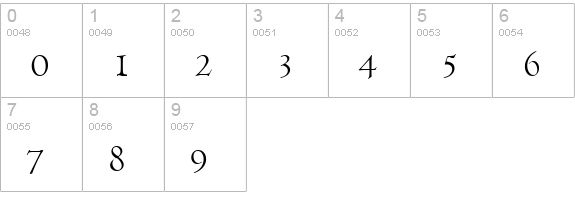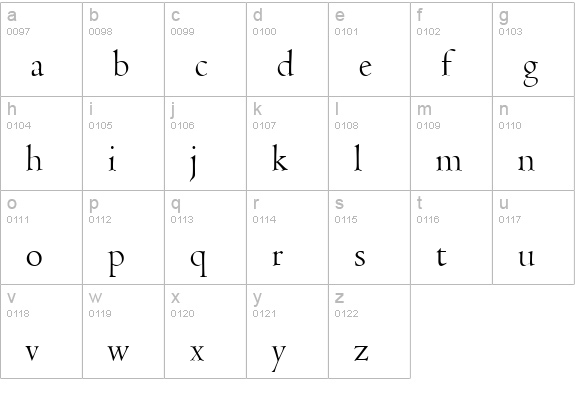
Viviene Normal Font Details
Viviene Normal is the standard, neutral variant in the Viviene typeface family \xE2\x80\x94 well suited to general body text, paragraphs, and standard typographic work.
Viviene Normal font is a versatile and elegant typeface that effortlessly combines traditional elements with a modern twist. Its clean and balanced letterforms make it suitable for a wide range of applications, from professional documents to creative designs. With its timeless appeal, Viviene Normal font adds a touch of sophistication to any project. Whether you're designing a logo, creating a website, or crafting a printed piece, this font will elevate your work to new heights. One of the best things about Viviene Normal font is that it is freely available to download at FontsMarket.com. You can enjoy the beauty and functionality of this font without any cost or restrictions. This makes it an excellent choice for both personal and commercial projects, as it allows you to create stunning designs without breaking the bank. The versatility of Viviene Normal font is further enhanced by its extensive character set, which includes a wide range of special characters, ligatures, and alternates. This allows you to add a unique and personalized touch to your designs, making them truly stand out. Whether you're a professional designer or a hobbyist, Viviene Normal font is a must-have in your font collection. Its timeless beauty, versatility, and the fact that it is freely available to download at FontsMarket.com make it an invaluable asset for all your design needs.